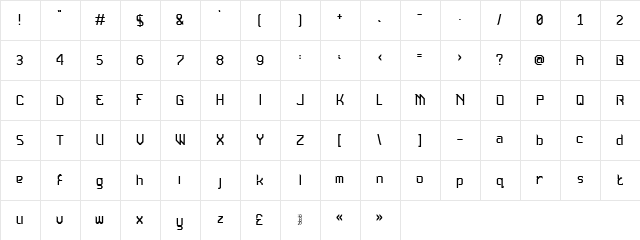
Sliced AB Regular Slice
| Foundry | Alex Banks |
| Designer | Alex Banks |
Design Context for Sliced AB Typeface
Sliced AB offers clean, dependable letterforms without strong stylistic allegiance, making it a practical choice for designers who need flexibility.